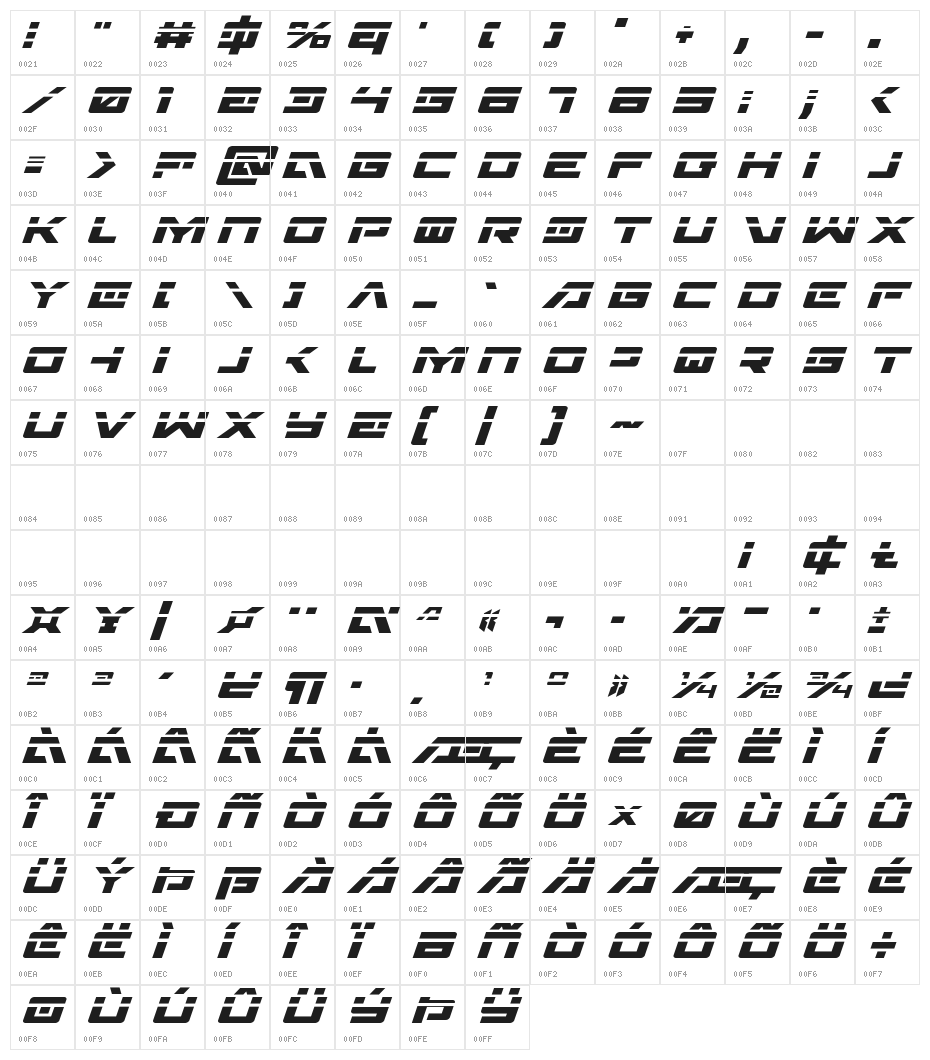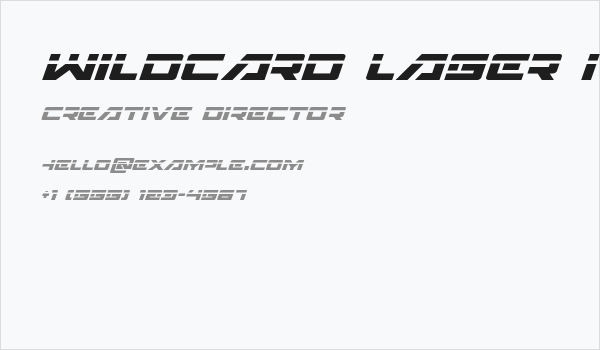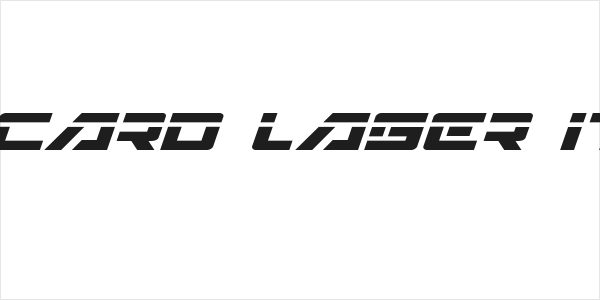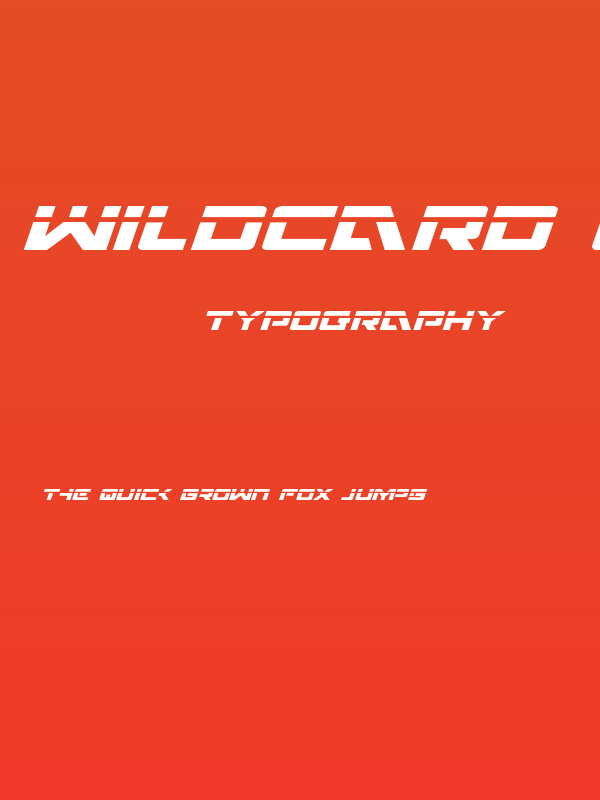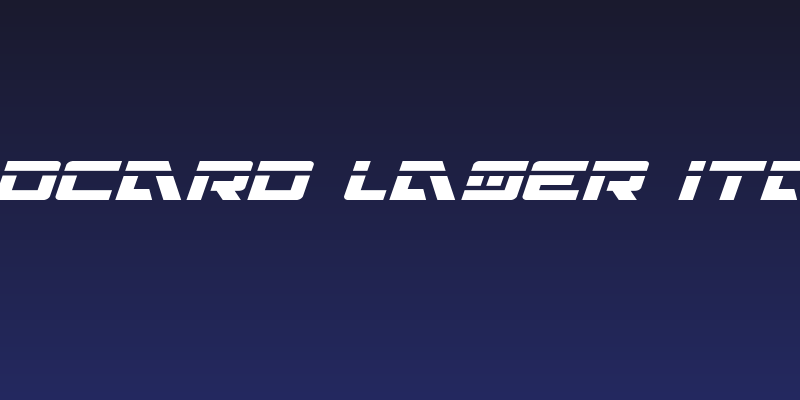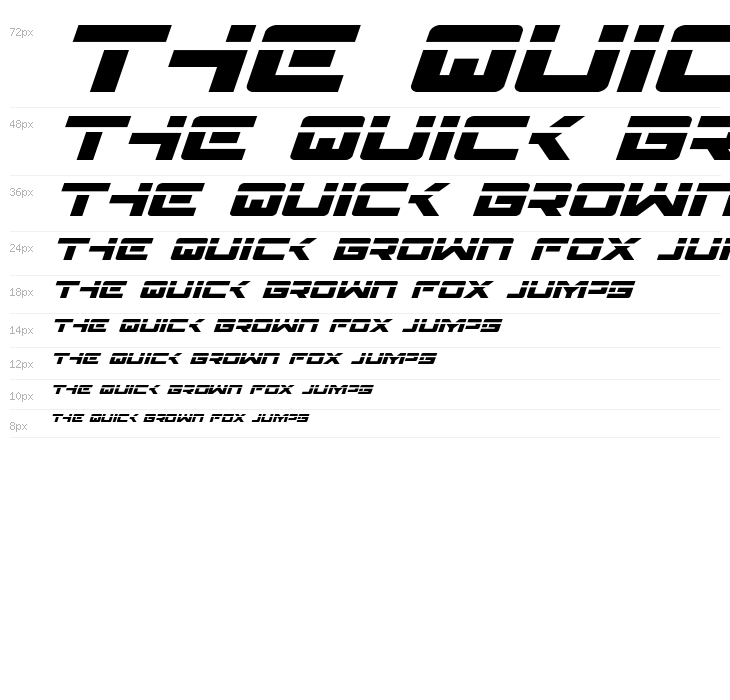
Wildcard Laser Italic Font
Wildcard Laser Italic Description
This font features a futuristic and dynamic design, characterized by its angular and geometric shapes. The letters are bold and italicized, giving a sense of movement and speed. The uppercase and lowercase letters maintain a consistent style, with sharp edges and a slightly condensed form. The numbers and special characters follow the same aesthetic, ensuring uniformity across all glyphs. The font's design is reminiscent of digital or sci-fi themes, making it suitable for projects that require a modern and edgy look.
| Proposed Projects | Ideal for sci-fi themed projects, video game titles, tech branding, and futuristic posters. |